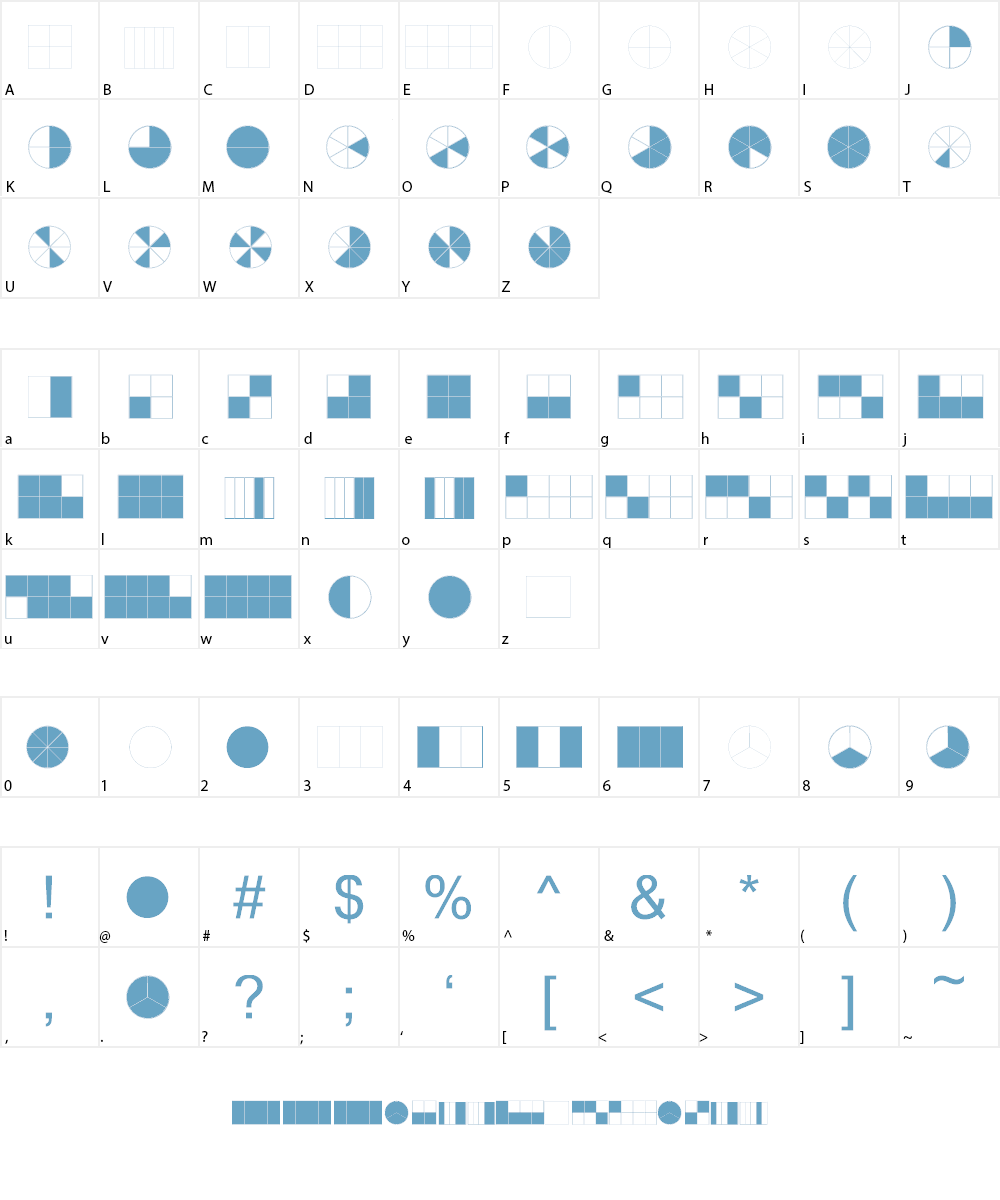
This font was created with math teachers in mind. It is hard to represent fractions in a way that can print easily in black and white on worksheets or tests. The extra outlines on these shapes are created just for that purpose- so your student can easily identify how many parts are shaded in the image. Blanks are also included so students can color in parts of a whole.